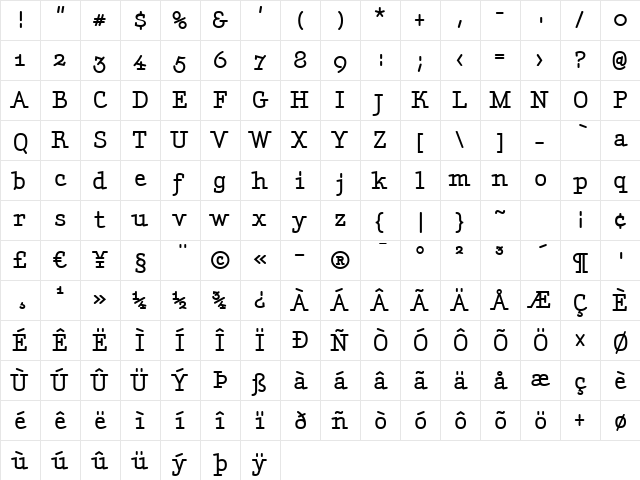
AmintaMedium Regular
Design Context for AmintaMedium Typeface
AmintaMedium takes a measured approach to typography — its balanced proportions and neutral character make it a reliable workhorse for both digital and print work.
Pro Tip: Use AmintaMedium in both headline and body roles to test its range before committing to a single application.